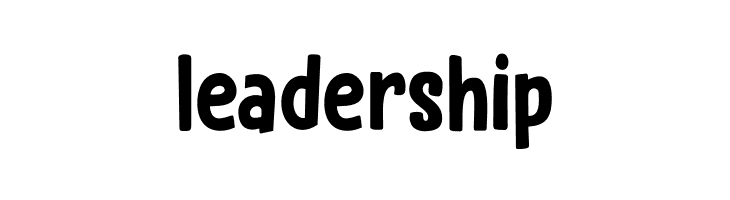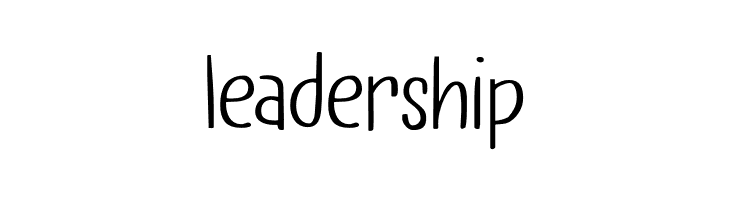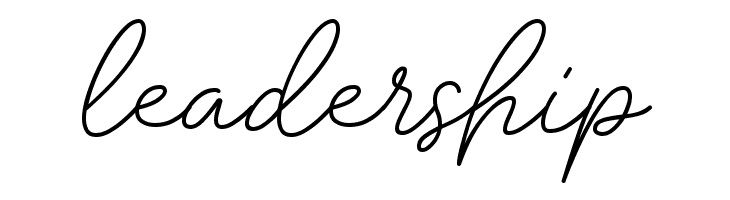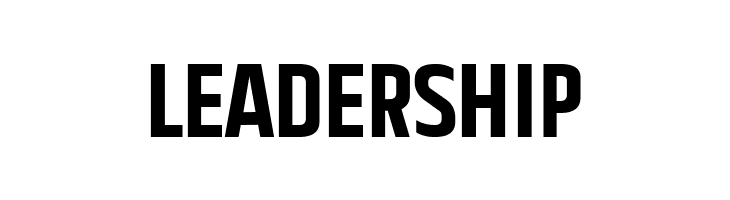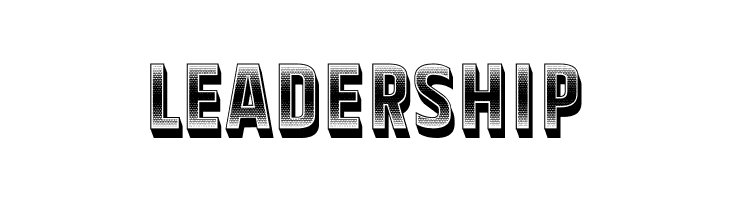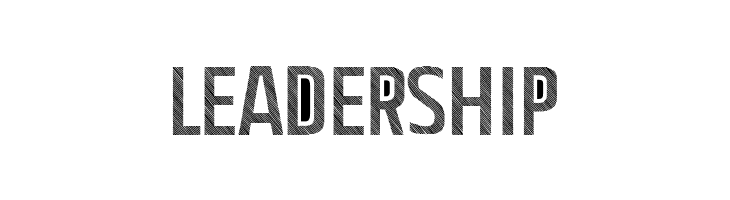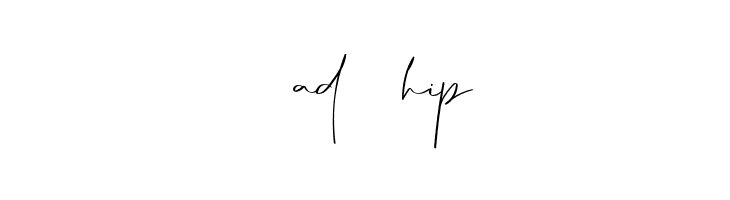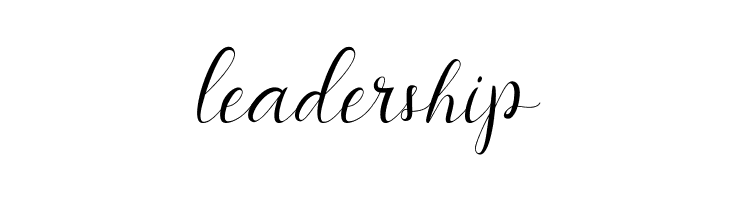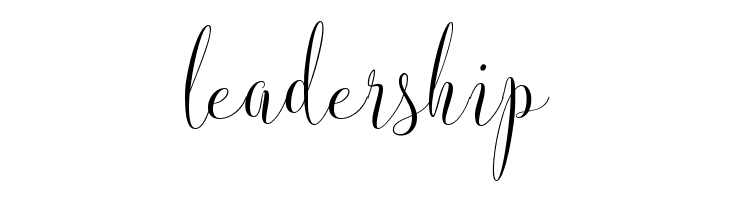
A bold, sketch-style font with a three-dimensional, textured appearance.
A futuristic, geometric font with bold, angular letterforms.
A geometric, futuristic font with angular, interconnected letterforms.
A bold, playful font with a hand-drawn, dynamic style.
A bold, modern font with uniform thickness and strong visual impact.
A geometric, angular font with a futuristic and abstract style.
A bold, distressed font with characters enclosed in textured boxes, perfect for vintage and grunge designs.
A playful font with characters inside flower-shaped outlines, perfect for decorative uses.
A bold, grunge-style font with intricate, swirling patterns and a rebellious edge.
A bold, modern font with clean lines and strong presence.
A bold, 3D font with a vintage, textured style ideal for impactful headlines.
A bold, textured font with a modern, geometric design.
A bold, playful font with a hand-drawn, casual style.
A modern, geometric font with intricate line and dot details.
A playful, hand-drawn font with tall, narrow letters and consistent stroke width.
A flowing, cursive font with elegant loops and a handwritten feel.
A modern, geometric font with sharp angles and smooth curves, perfect for contemporary designs.
A playful, hand-drawn font with tall, narrow characters and a whimsical style.
A graceful and fluid script font with interconnected letters and a handwritten feel.
A flowing, handwritten font with elegant, elongated strokes and a casual sophistication.
A bold, graffiti-inspired font with dynamic, expressive strokes and intricate designs.
A playful, bold font with rounded edges and decorative elements.
A playful, narrow font with subtle curves and balanced proportions.
A bold, graffiti-inspired font with an expressive, hand-painted style.
A playful, hand-drawn font with an organic and casual feel.
A hand-drawn, playful font with bold, rounded strokes and an informal style.
A graceful script font with flowing, cursive strokes and elegant curves.
A modern, geometric sans-serif font with thin, uniform lines.
A graceful script font with flowing, interconnected letters and a calligraphic style.
A bold, playful script font with a handwritten style.
A bold, playful script font with a handwritten feel.